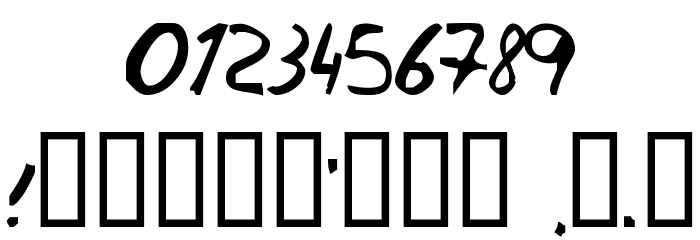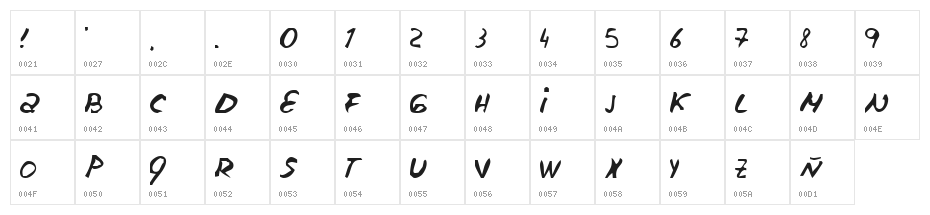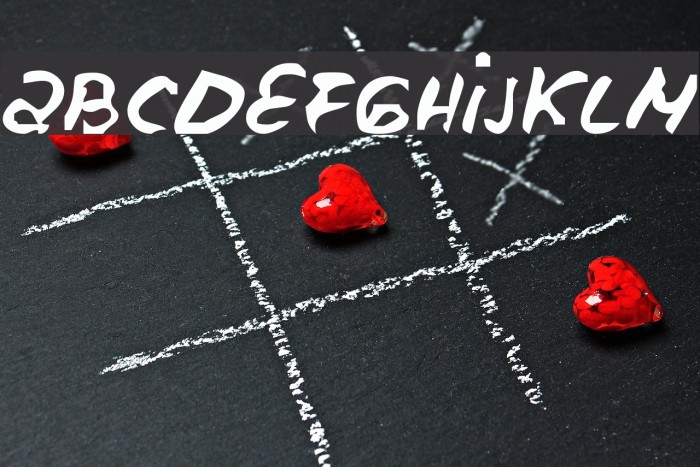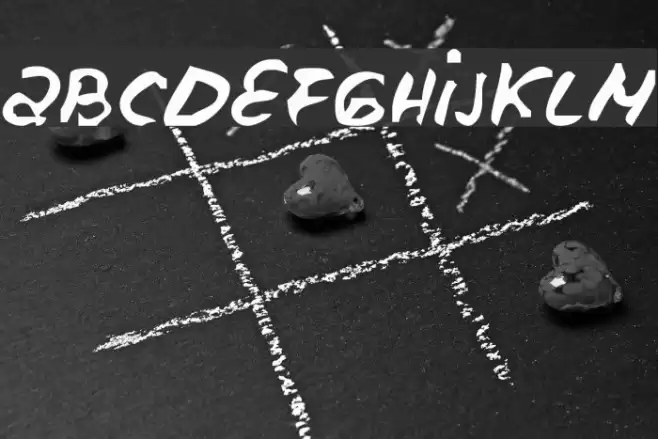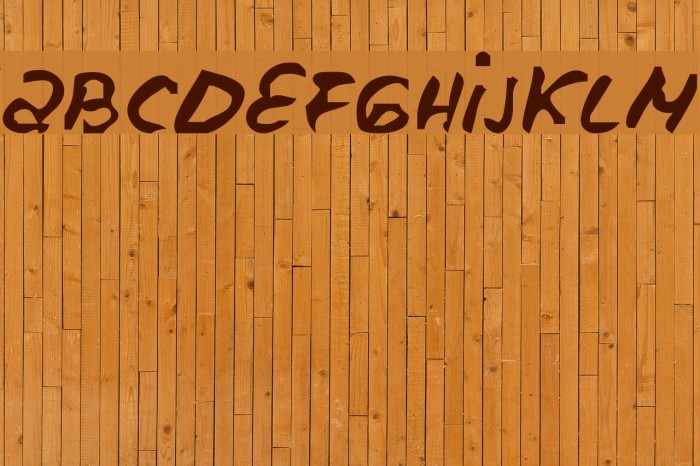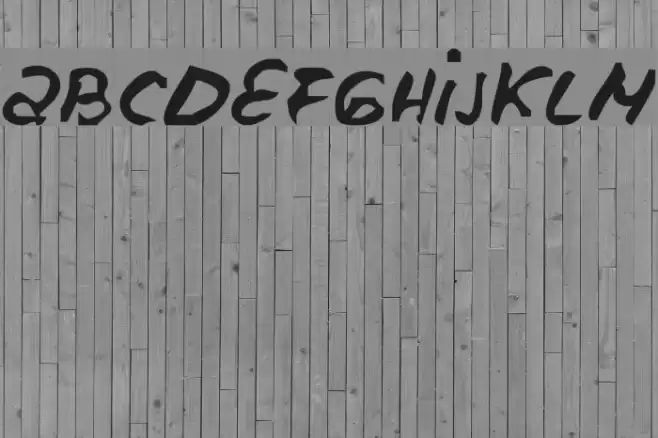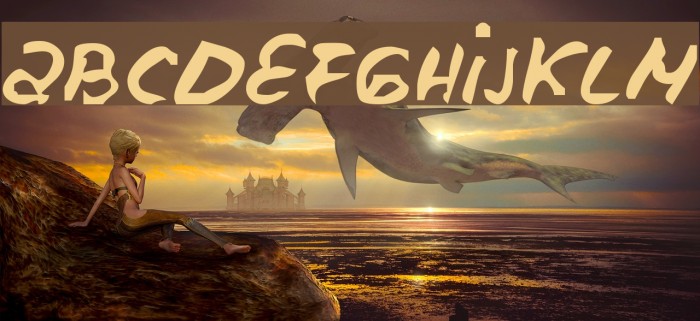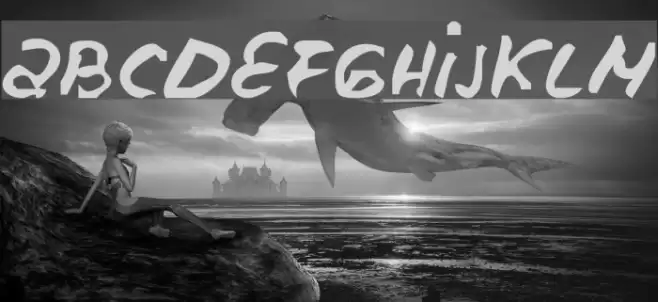
escudillers Font
escudillers Description
This font features a bold and dynamic script style with a handwritten appearance. The uppercase letters are slightly slanted, giving a sense of movement and fluidity. The strokes are thick and consistent, providing a strong visual impact. The lowercase letters maintain the same energetic style, with some characters featuring unique loops and curves that add personality. The numbers are equally bold, with a slight slant that matches the overall style. This font is ideal for projects that require a personal touch or a sense of informality.